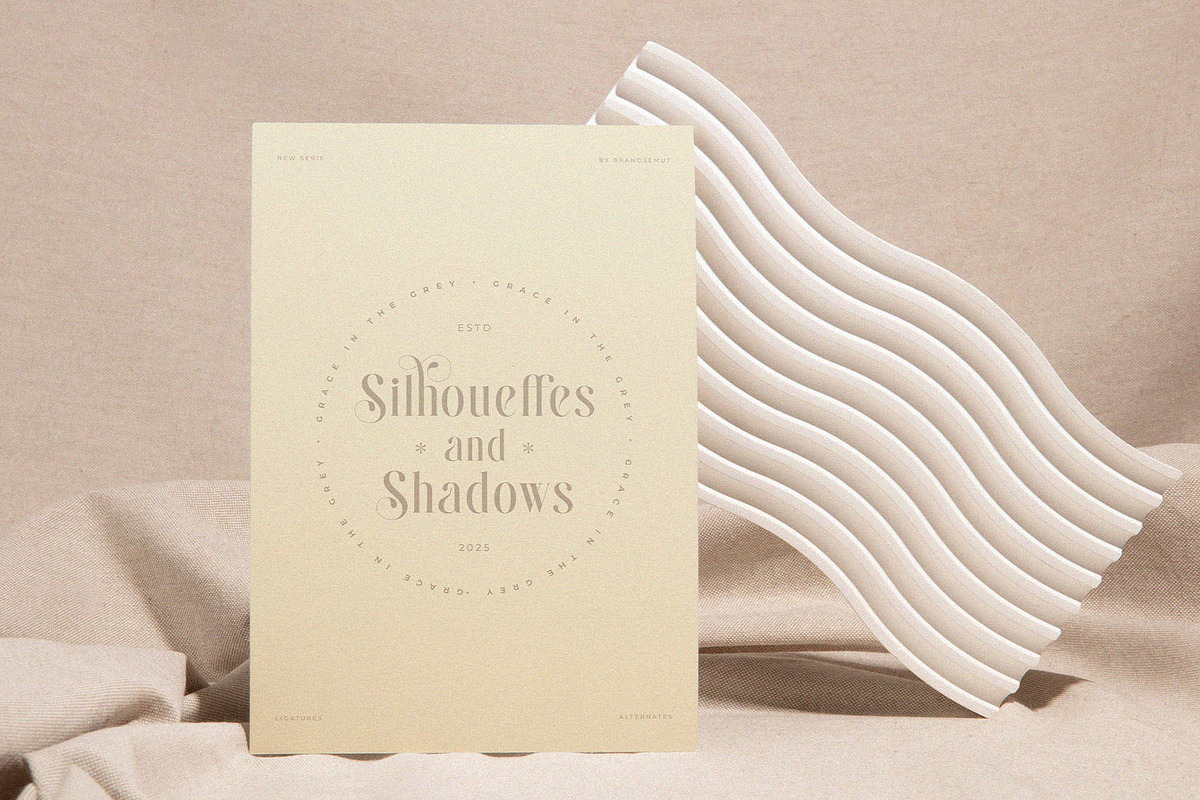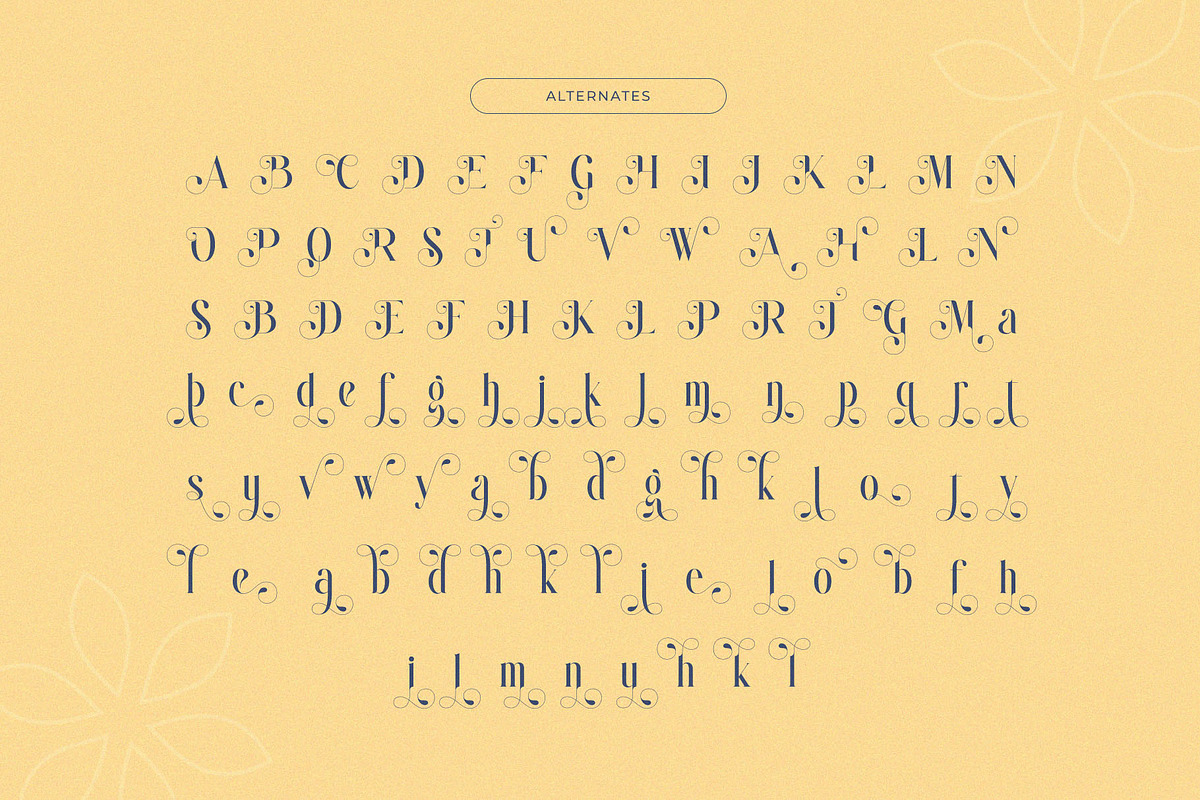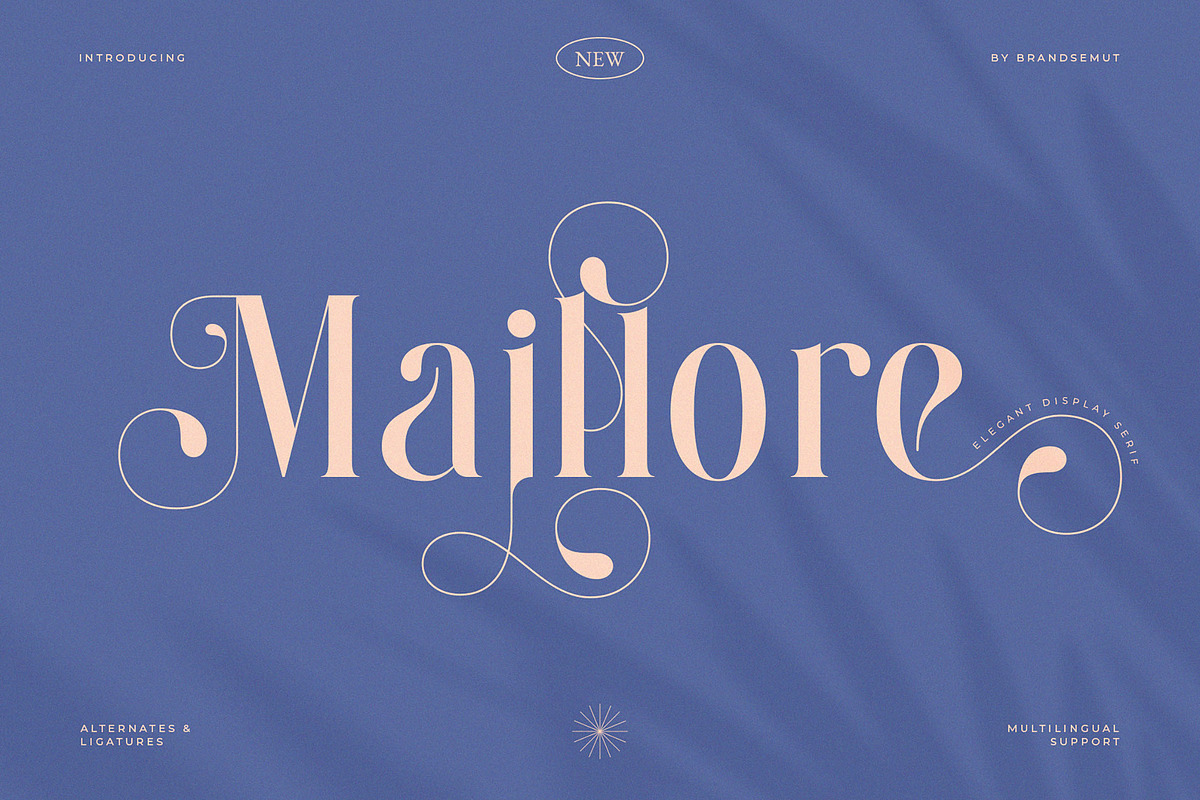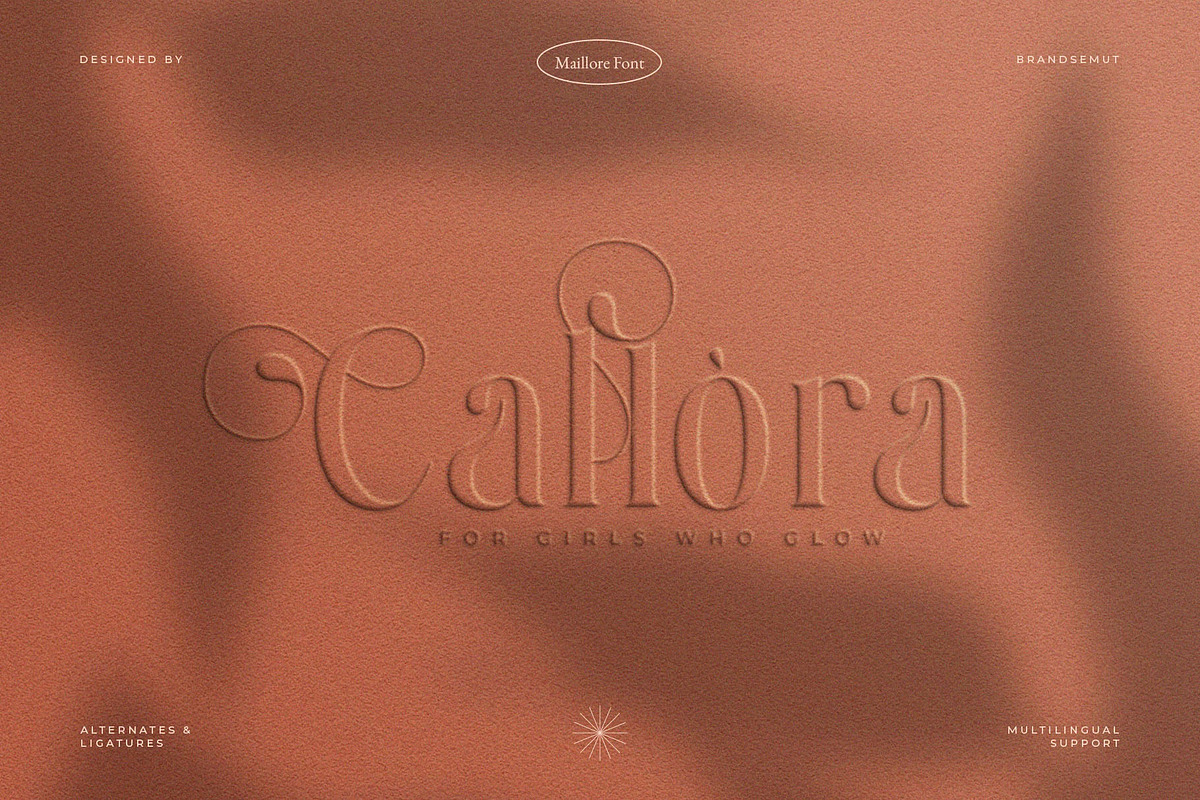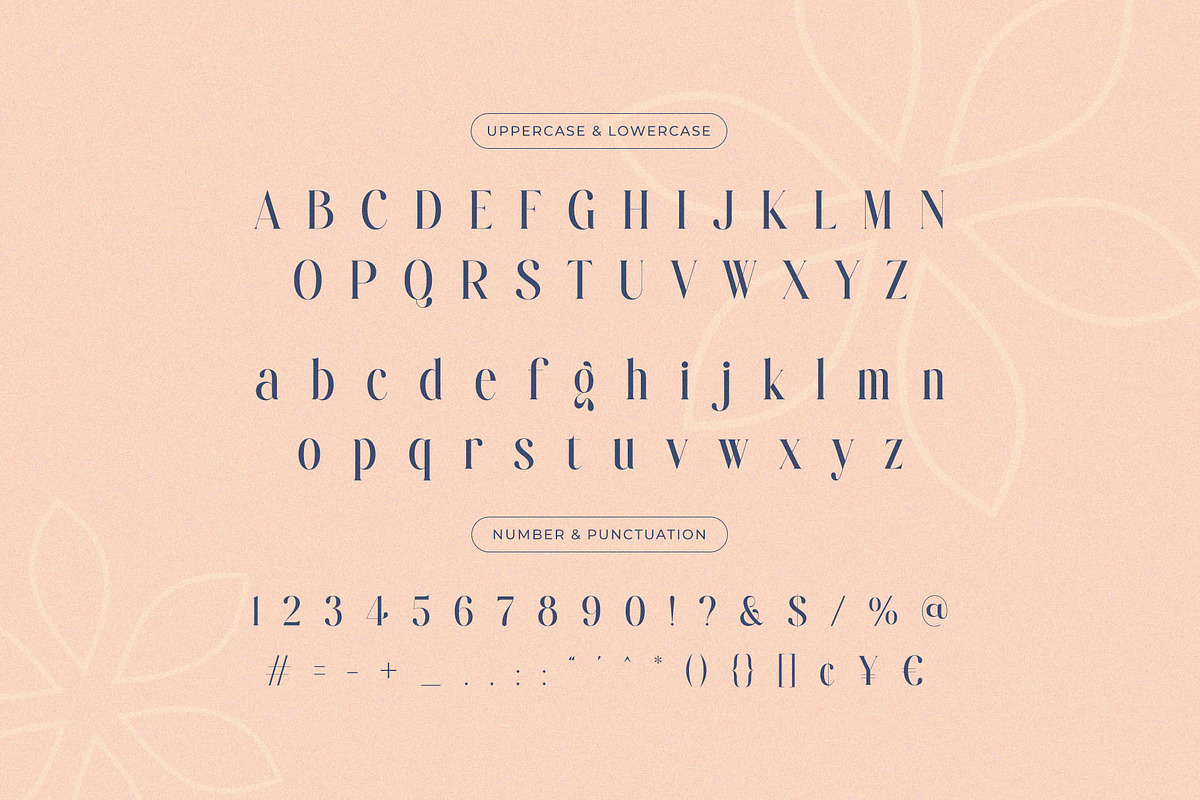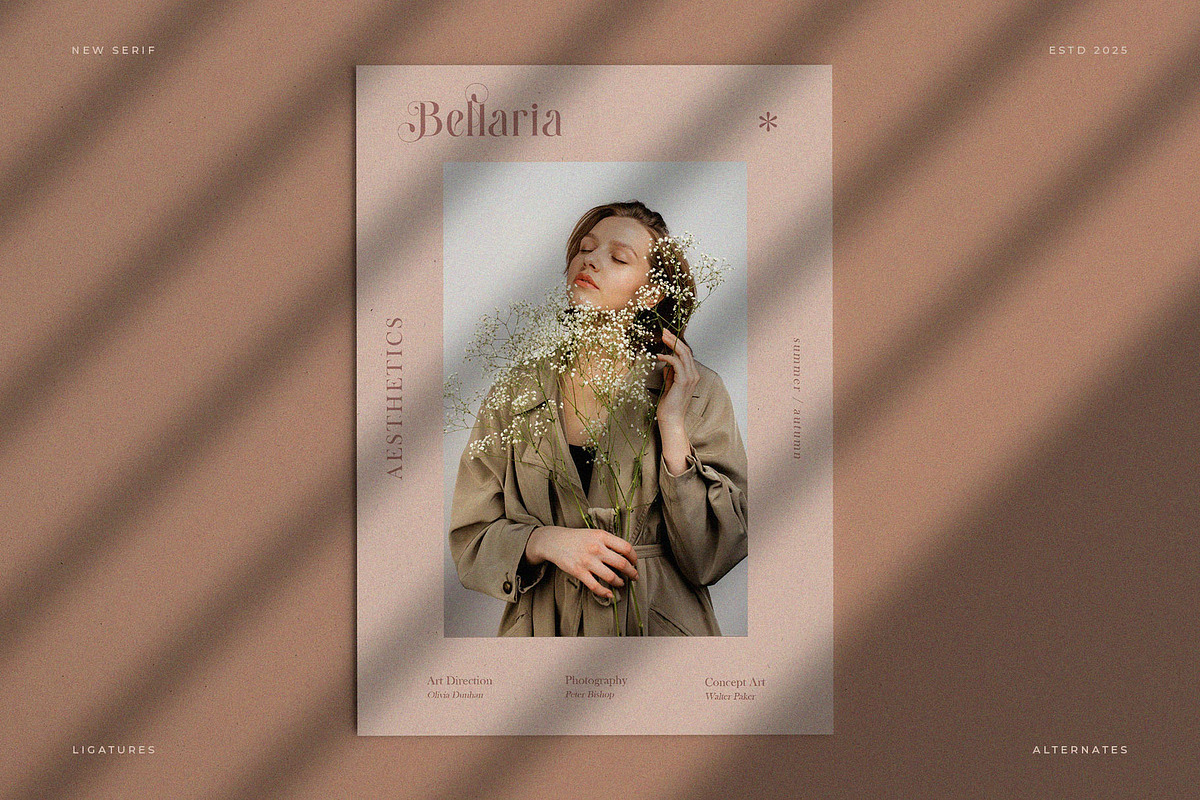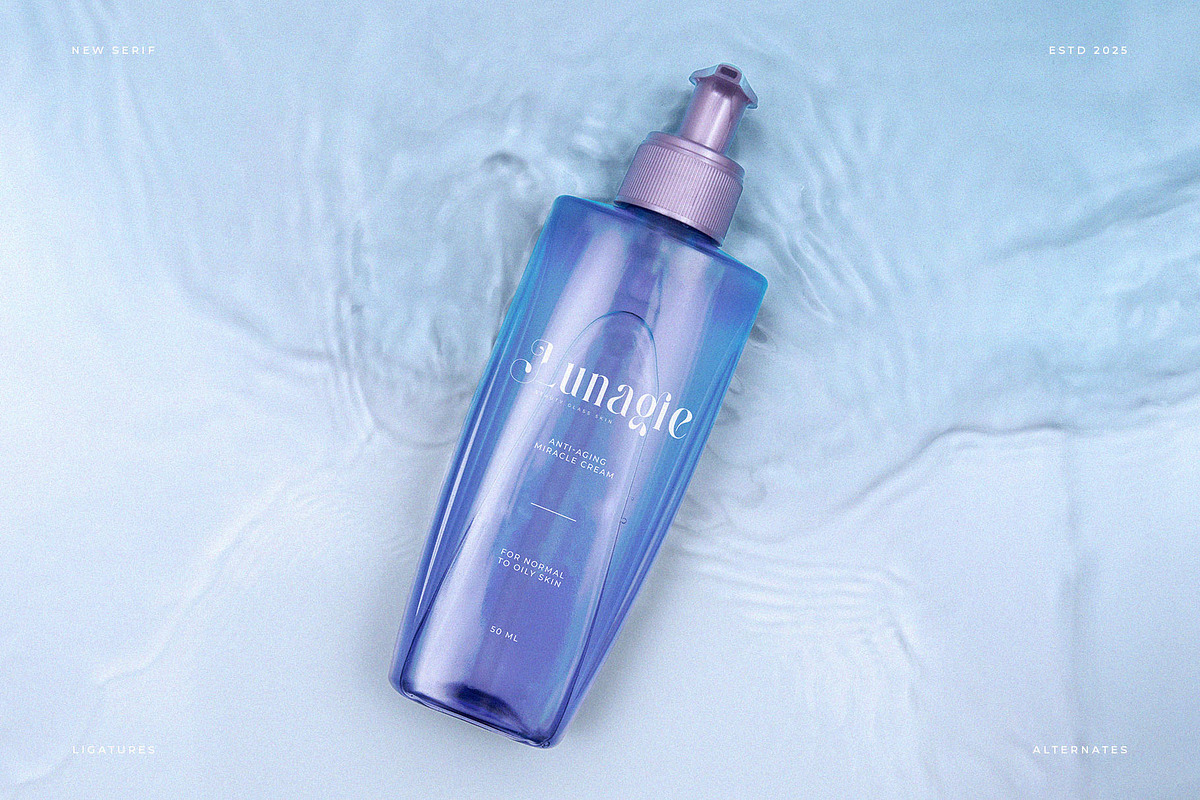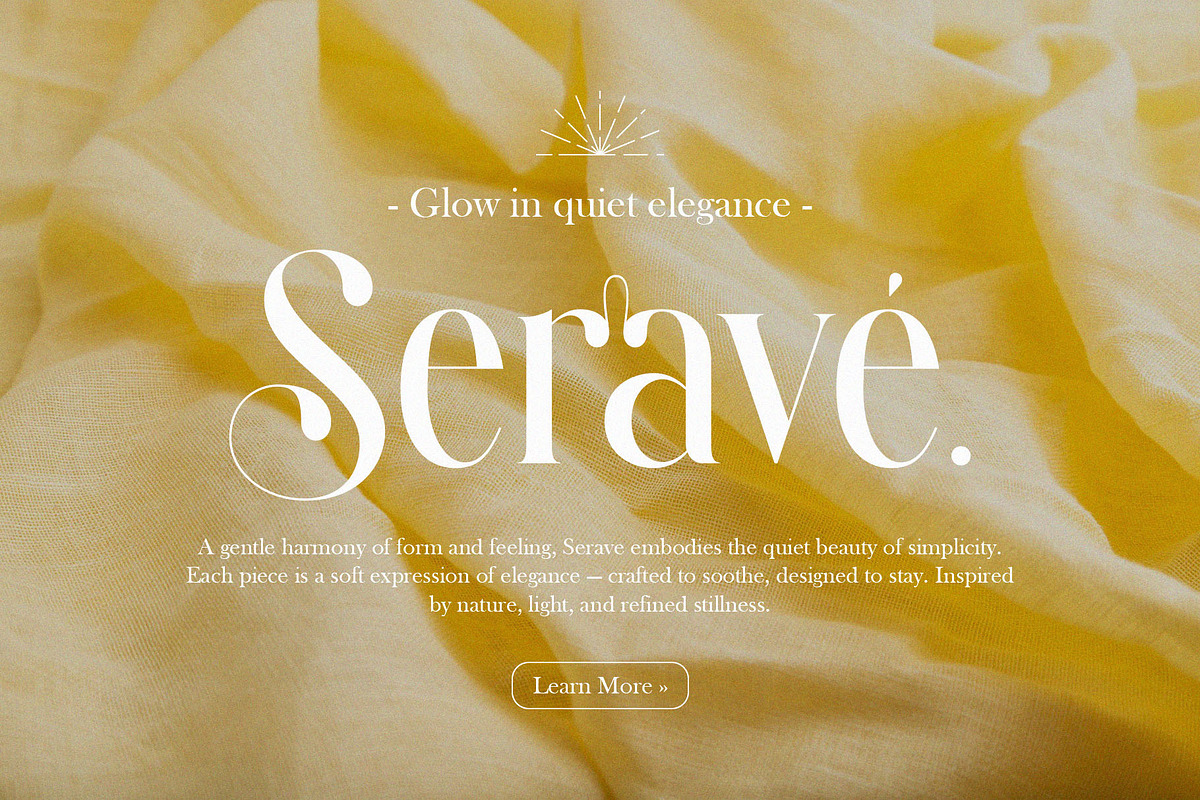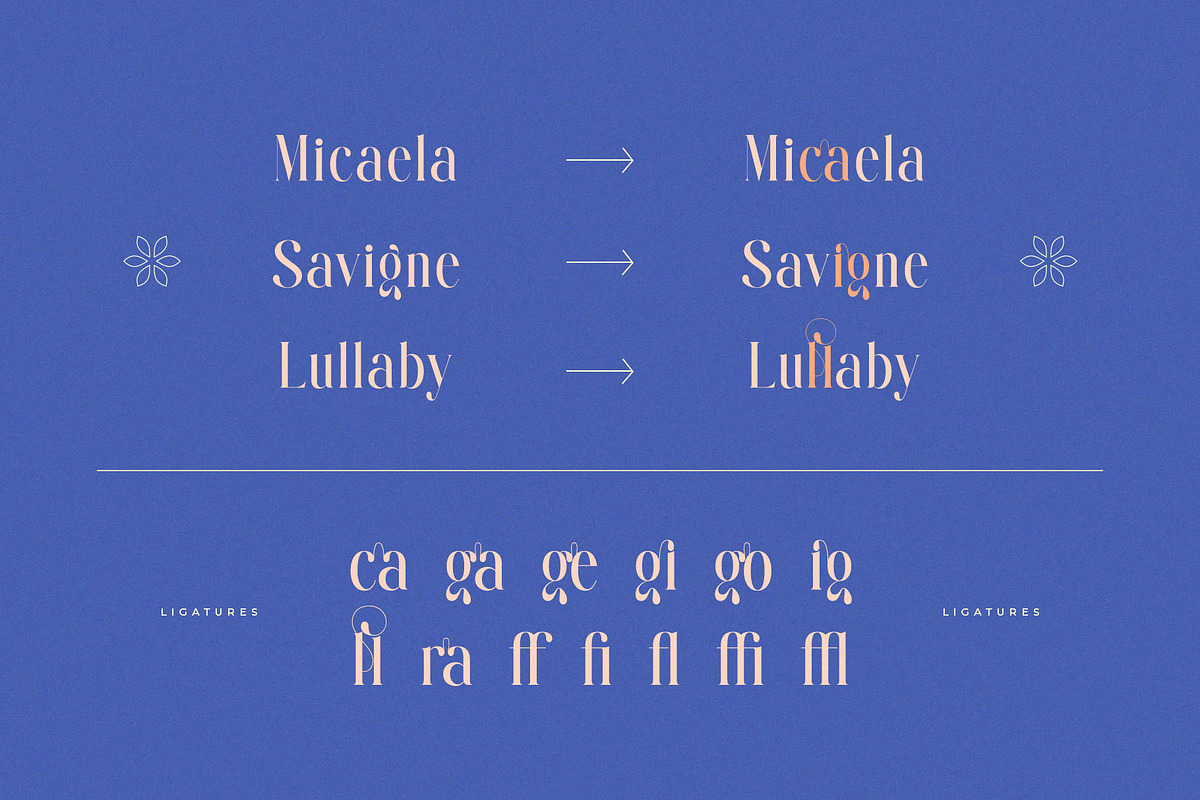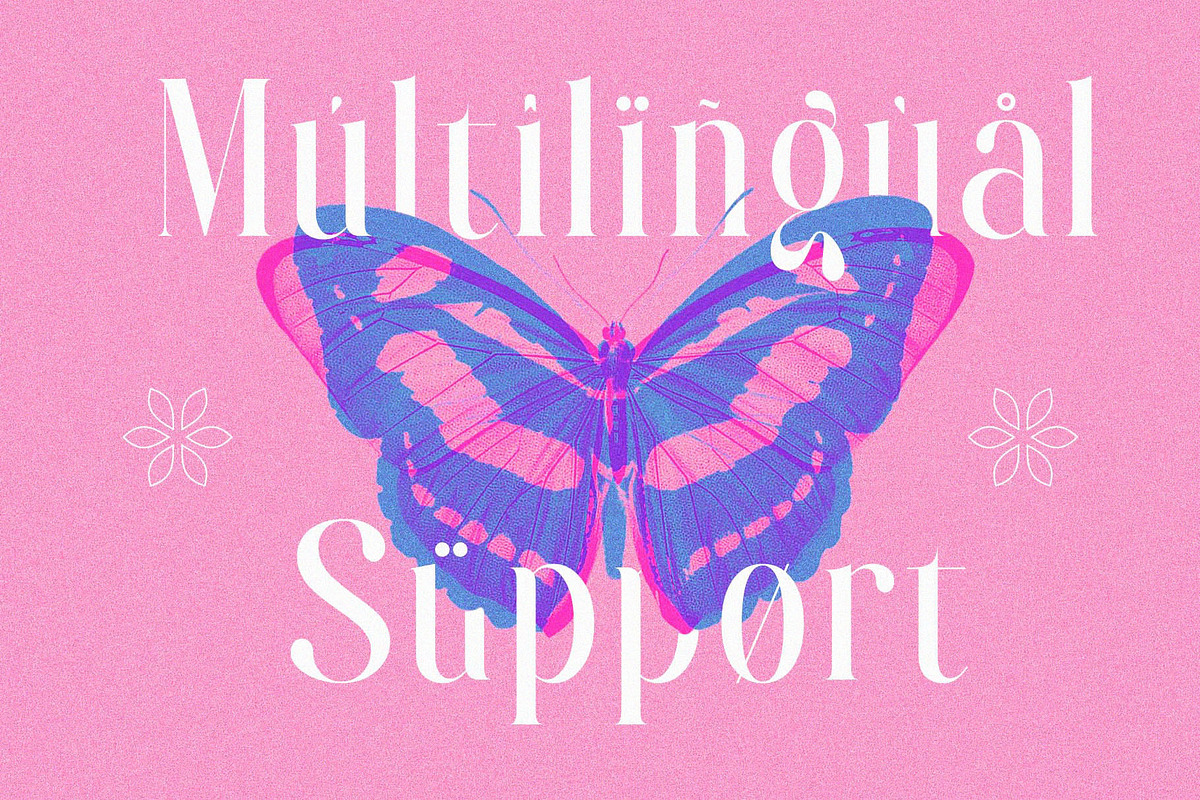
Maillore – Elegant & Stylish Serif
Maillore – Elegant Modern Display Serif Font with Stylish Ligatures and Alternates
Maillore is an elegant and refined modern display serif font that combines graceful curves with distinctive flair. Designed to exude both sophistication and style, this typeface features decorative ligatures and beautiful alternates that elevate any creative composition.
With its high contrast strokes and soft, luxurious forms, Maillore is the ideal font for upscale branding, fashion editorial titles, packaging, wedding stationery, social media posts, and more. Every letterform has been carefully crafted to deliver balance, elegance, and strong visual impact—making your design projects stand out effortlessly.
- Font Style: Elegant Display Serif
- Included: Uppercase & Lowercase, Ligatures, Alternates
- Designed for: Logo Design, Branding, Magazine Headlines, Posters, Packaging, Invitations, Web Use, and Social Media Design
Maillore is the perfect addition to your modern font collection. Whether you’re a designer, brand strategist, or creative professional, this font offers versatility and timeless sophistication for any visual identity.